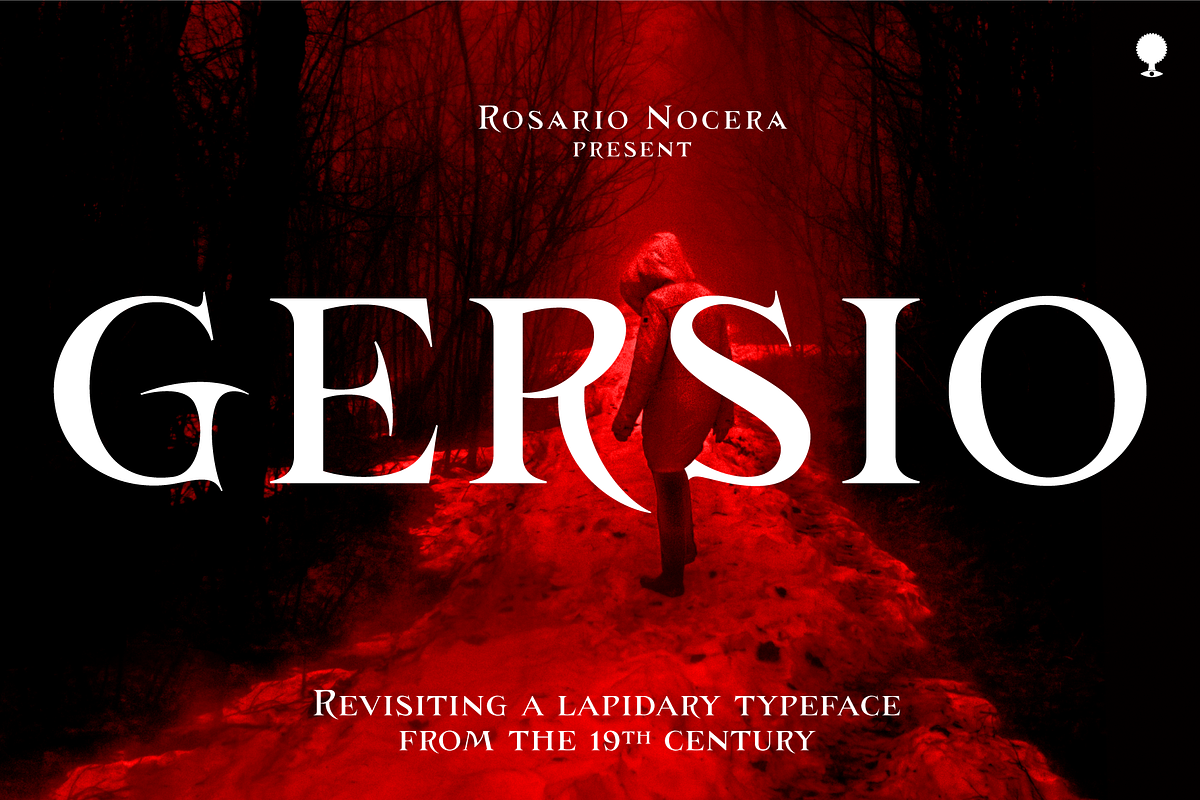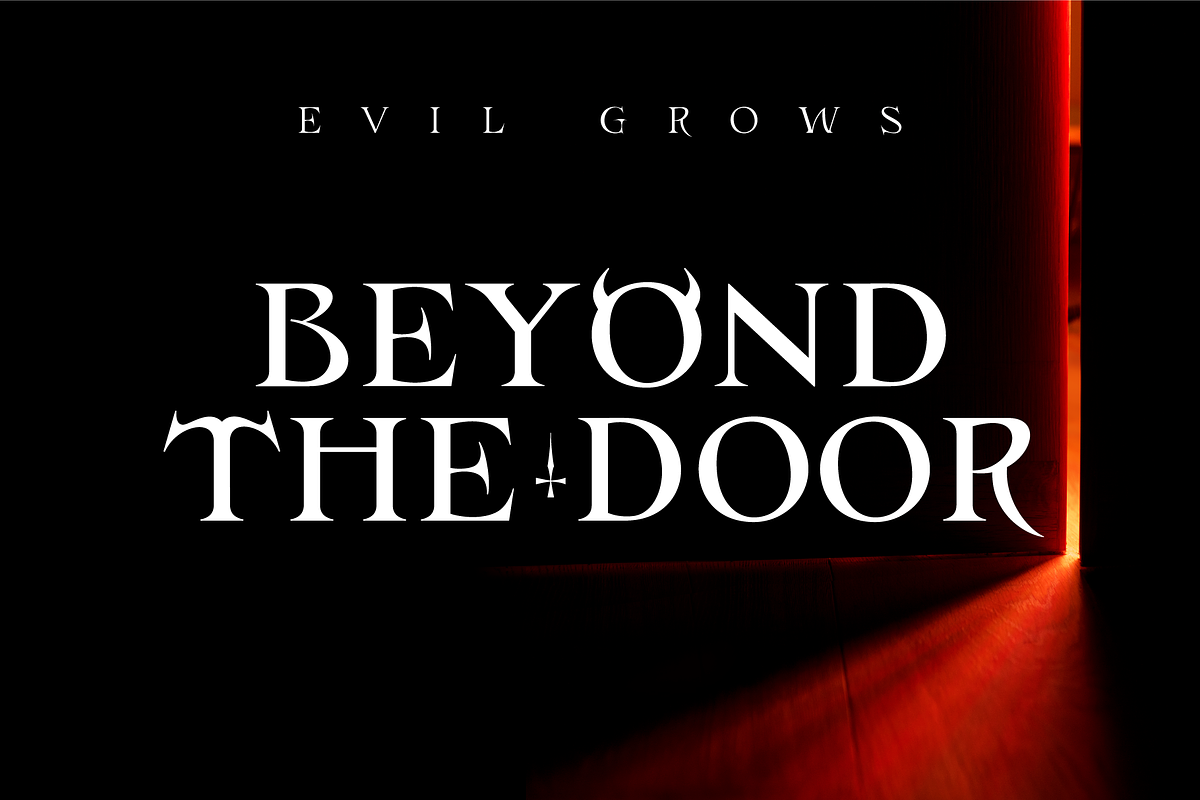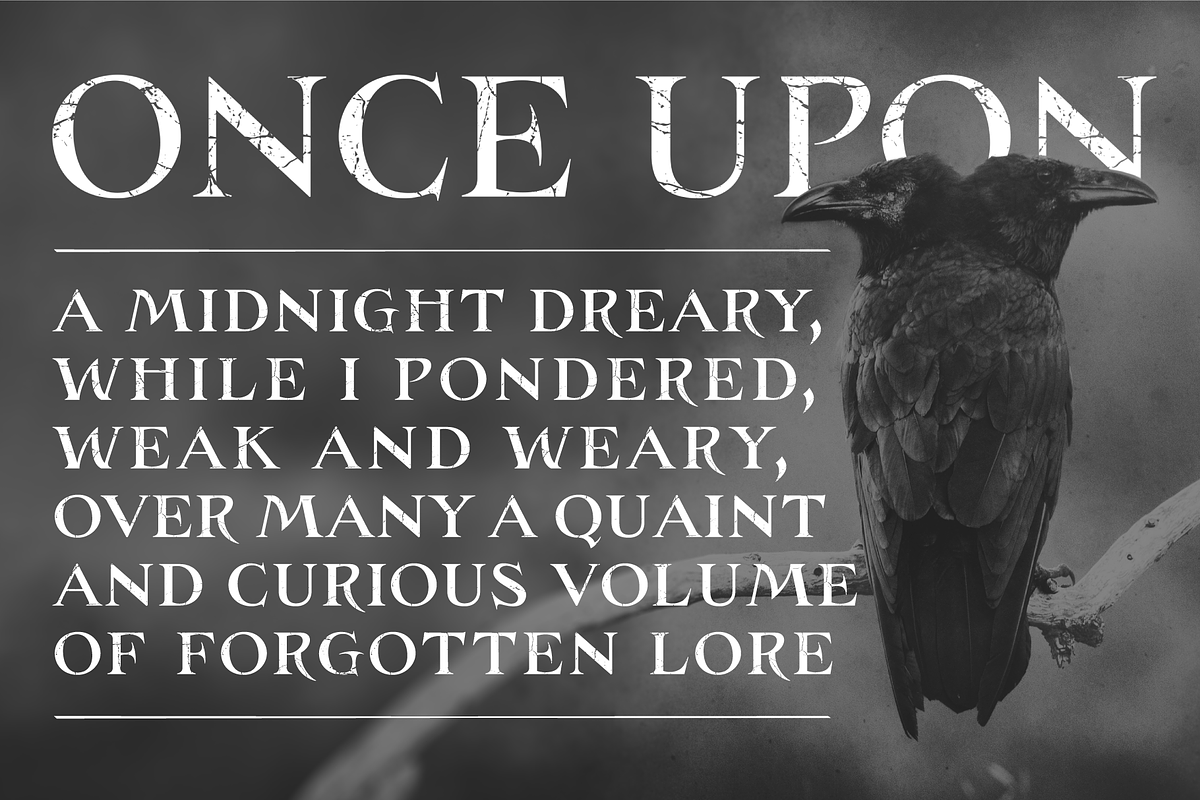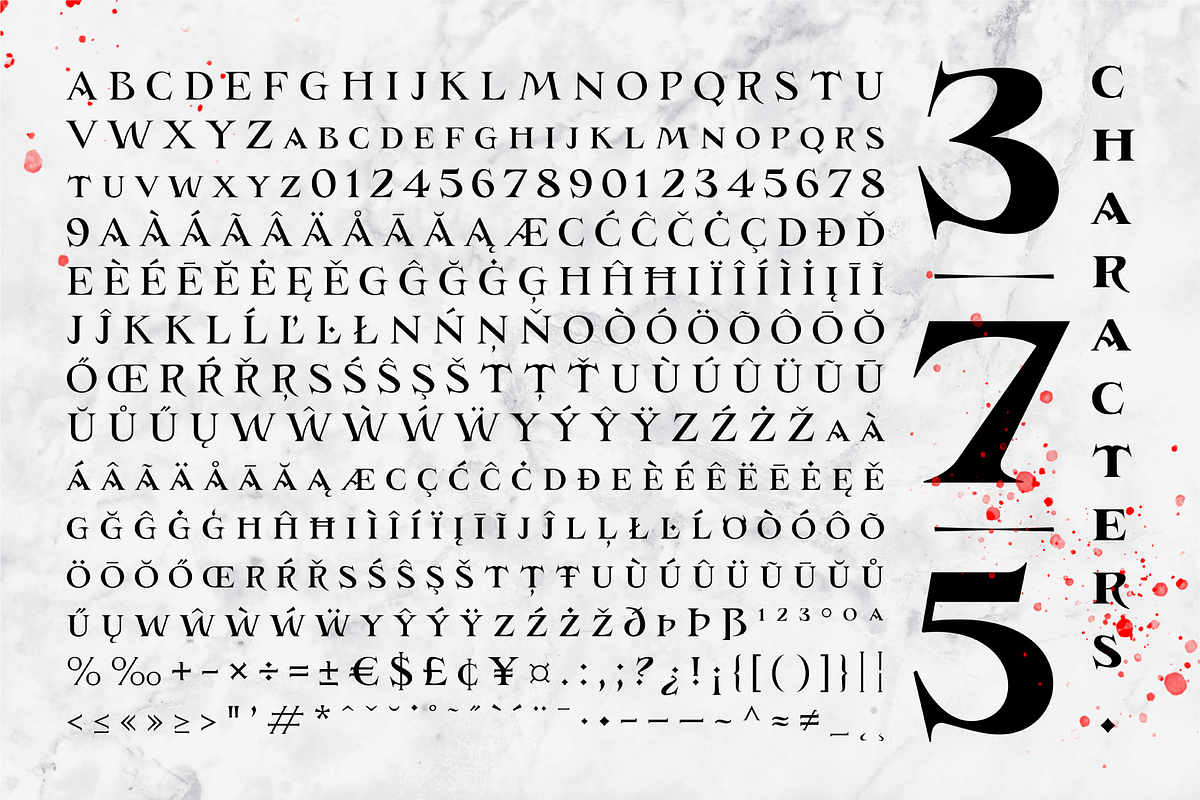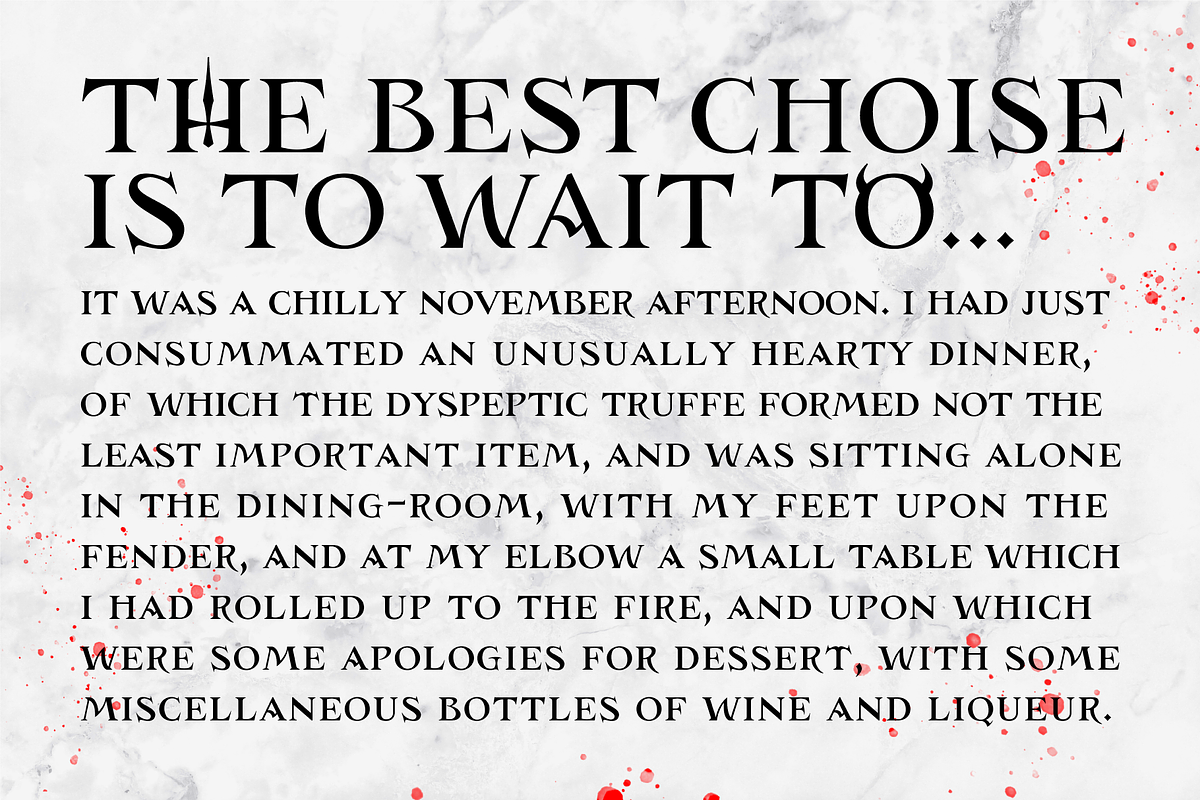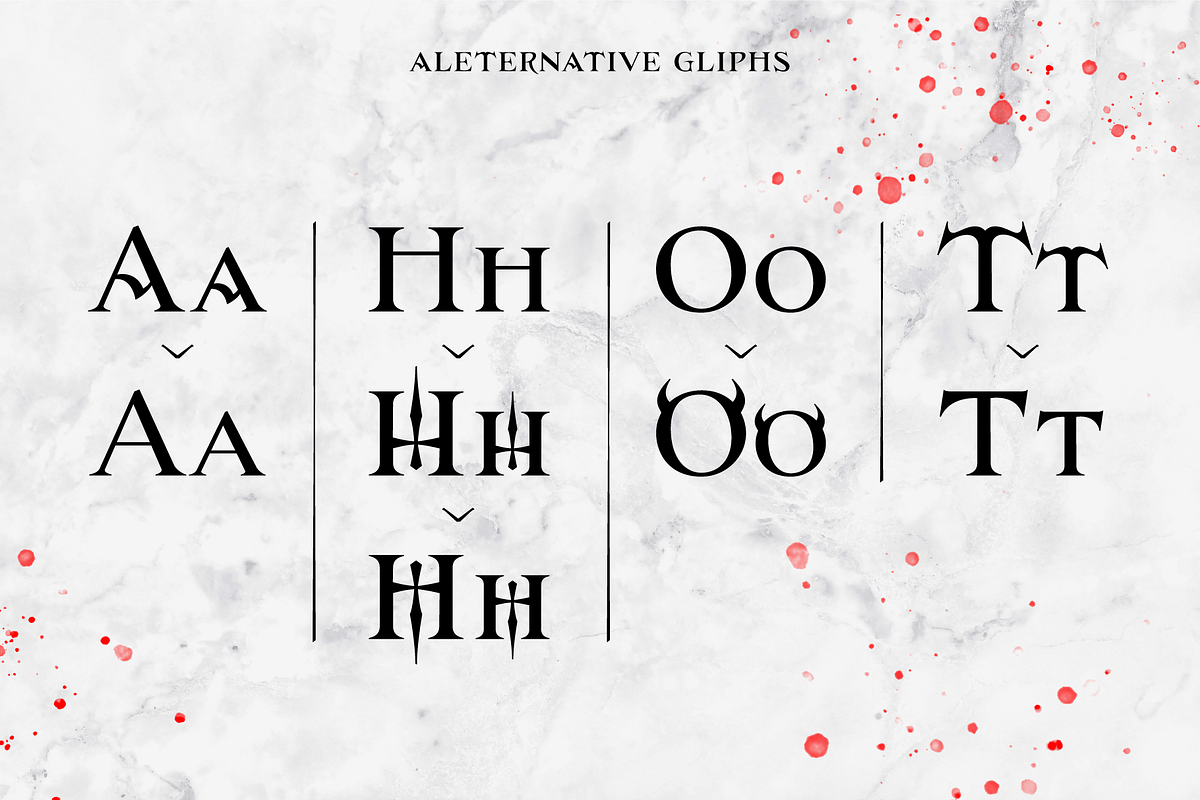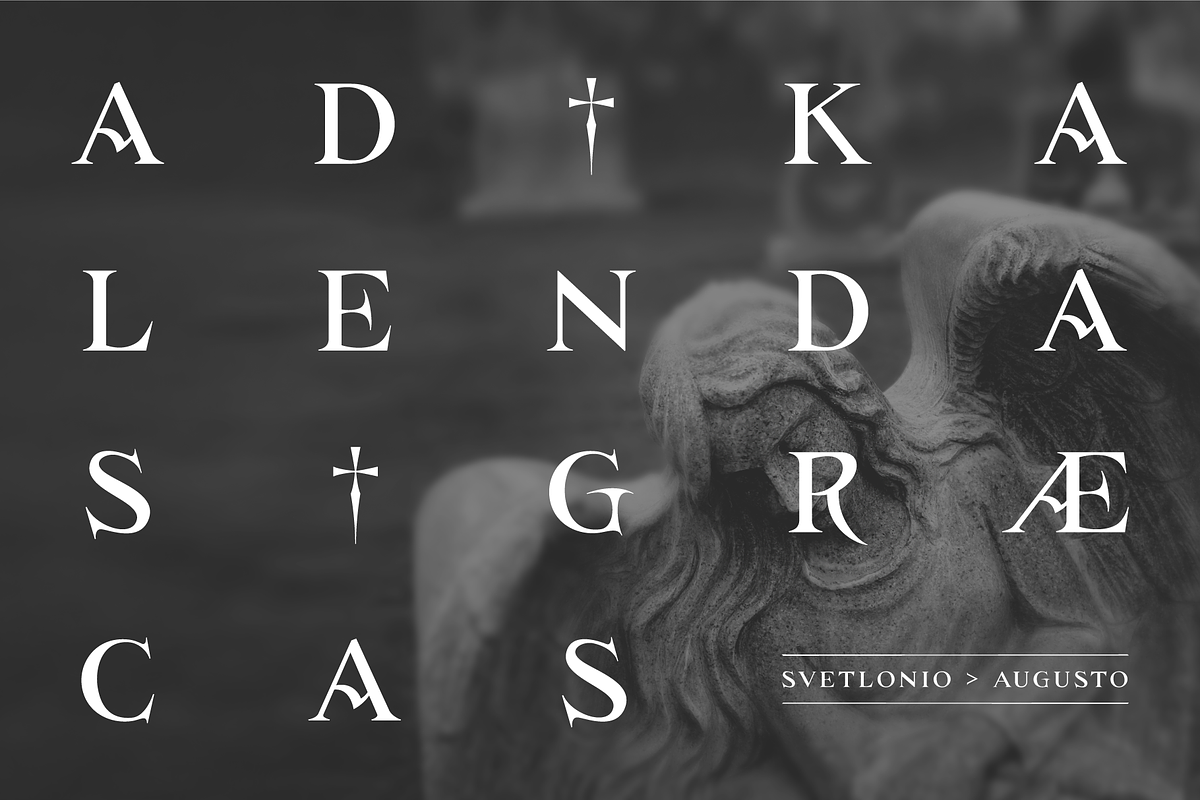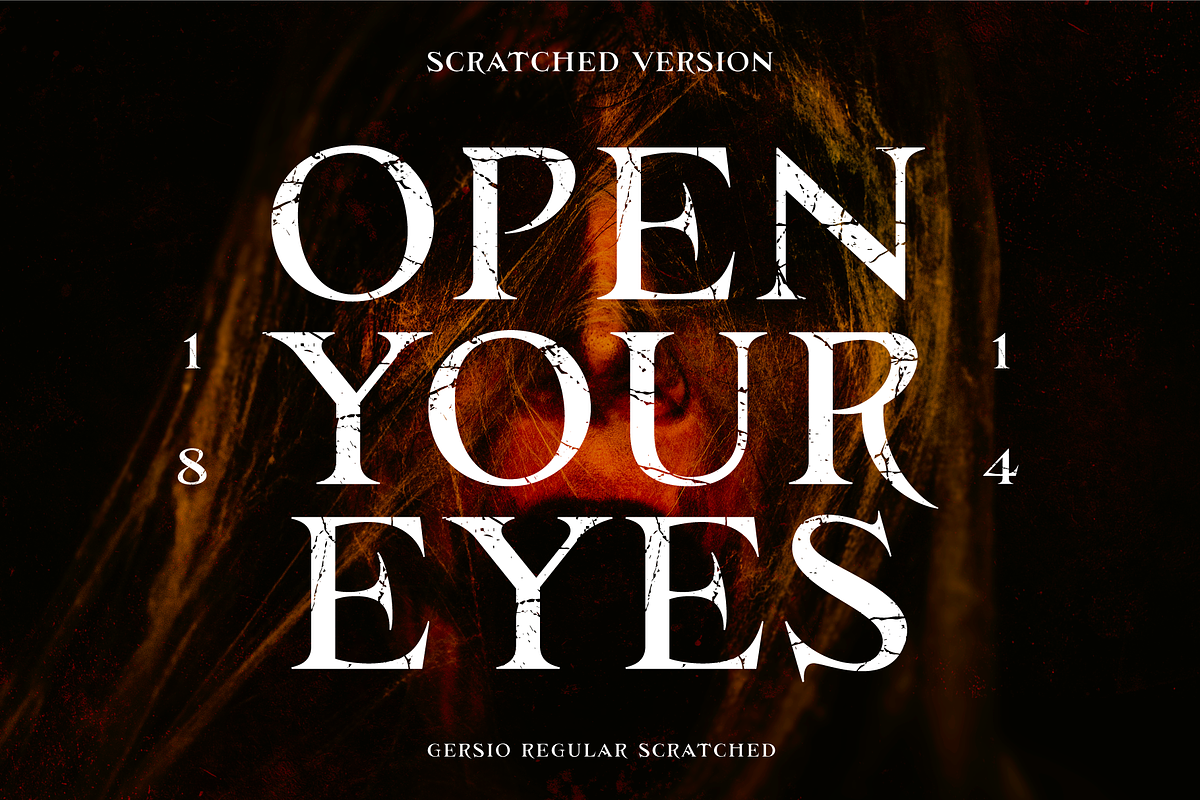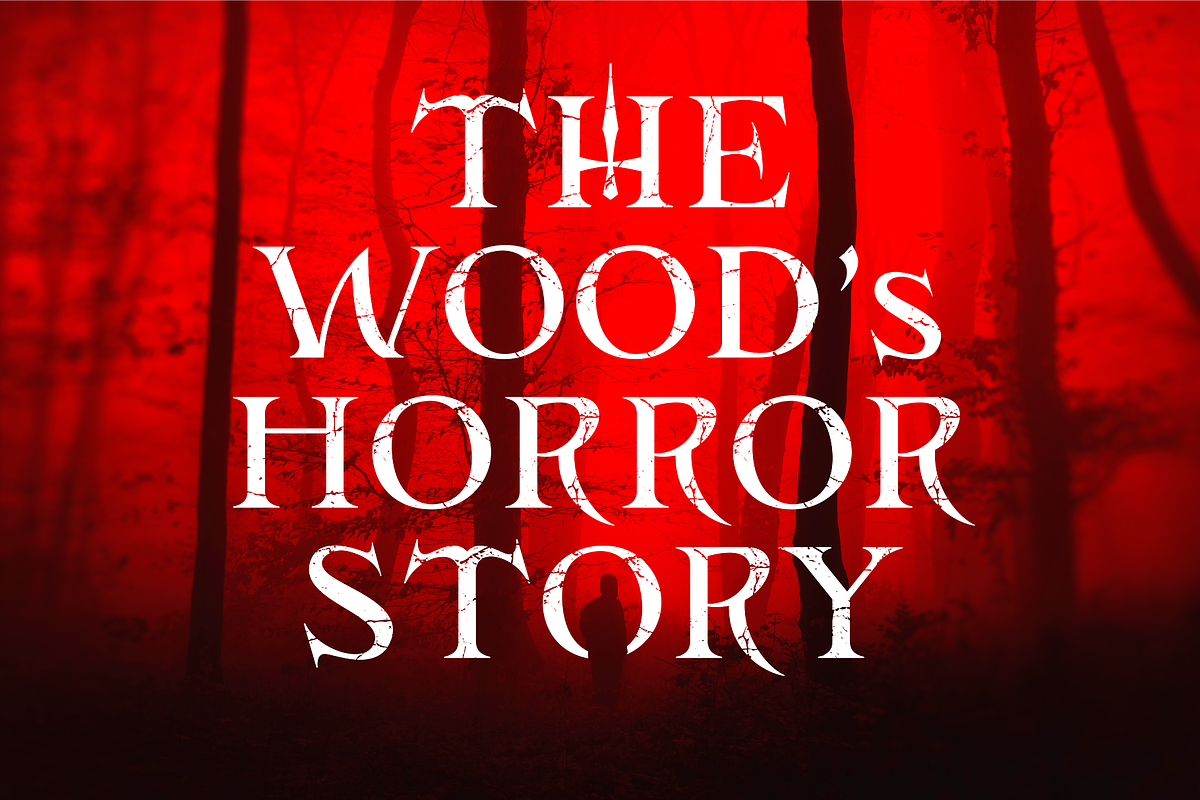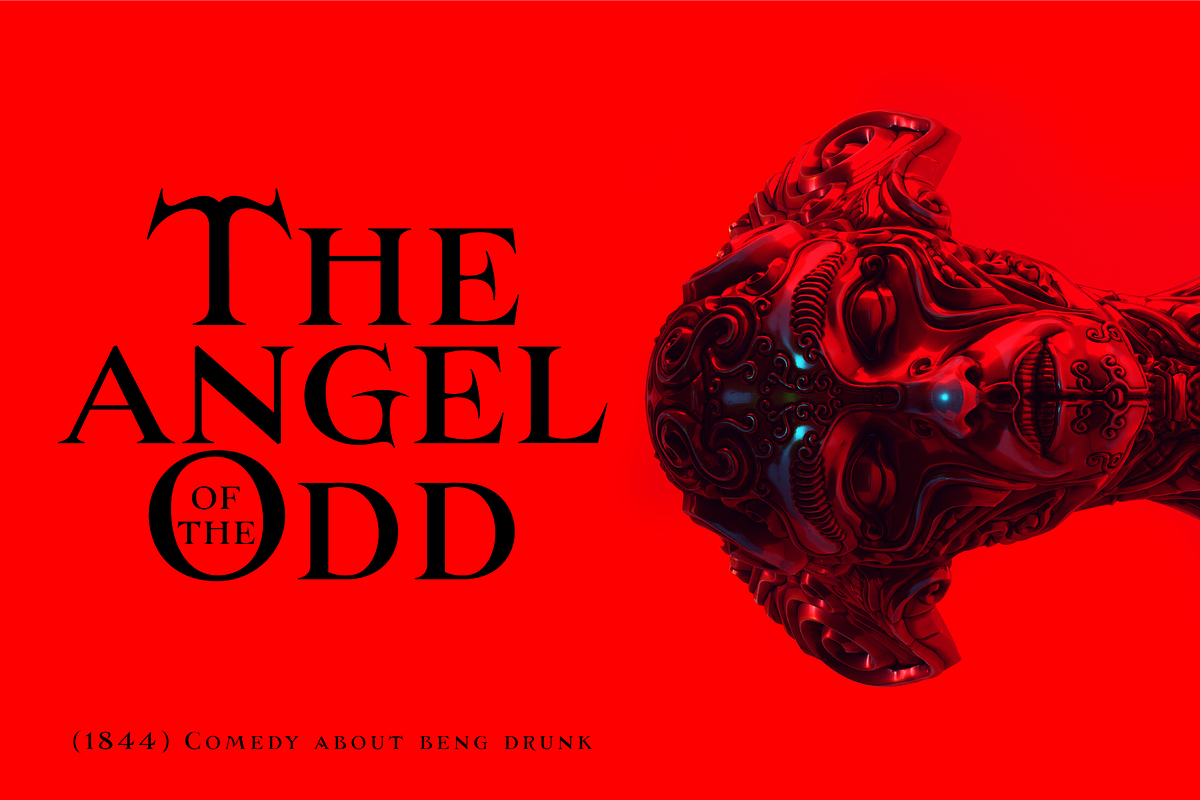
Gersio
Gersio is a revisiting of a lapidary typeface from the 19th century designed for the horror and thriller genre but thanks to its strong distinctiveness it’s also suitable for branding. Gersio is available in light, regular and bold weights in two versions: solid and Scratched, it also offers a large selection of alternative letters. Gersio is suitable for display works, posters and billboards.